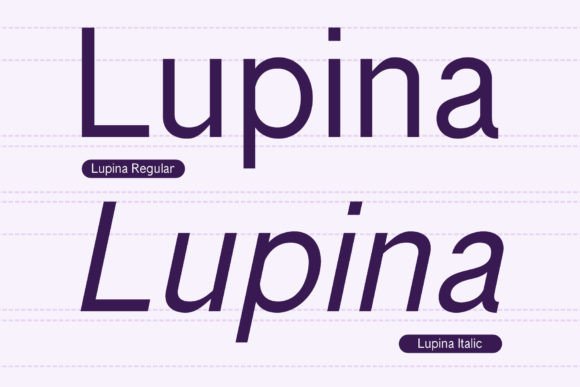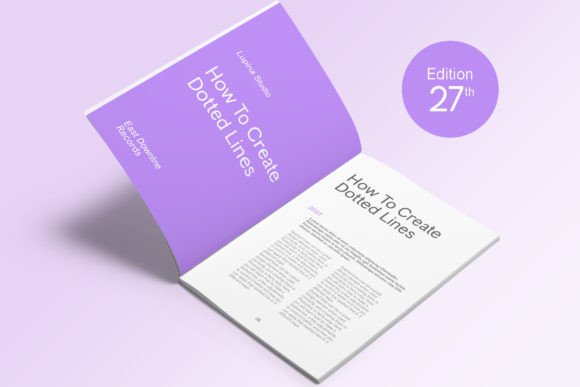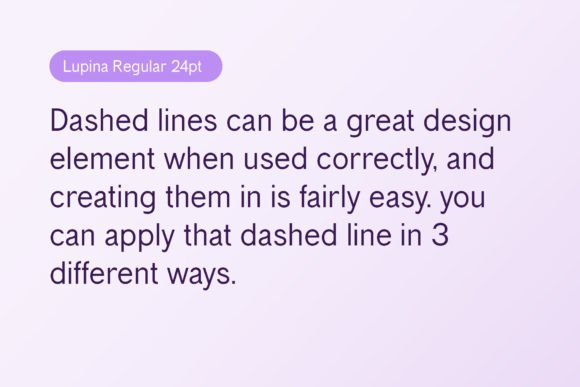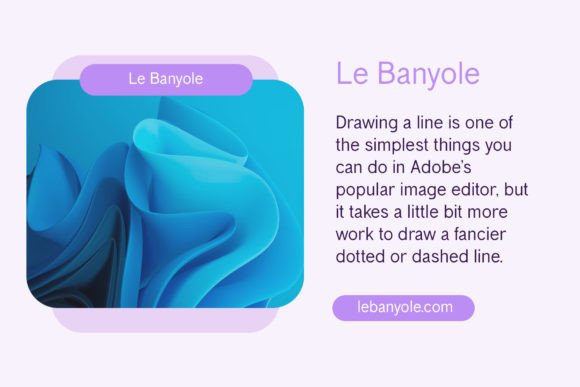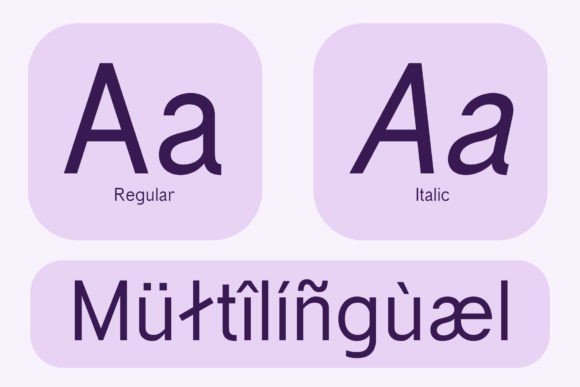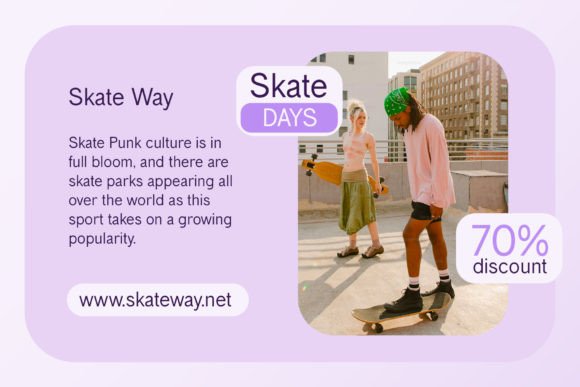
Introduction to Lupina Font
Introducing Lupina, where modern simplicity meets timeless sophistication.
This sleek sans-serif grotesque font effortlessly enhances your projects with a clean, contemporary vibe This typeface is ideal for greeting card, packaging, brand identity, poster, or any purpose to make your design project look eye catching and trendy.
Lupina Font offers exceptional quality and versatility, making it a valuable addition to your design toolkit. Whether you’re creating for personal projects or commercial use, Lupina Font delivers professional results.